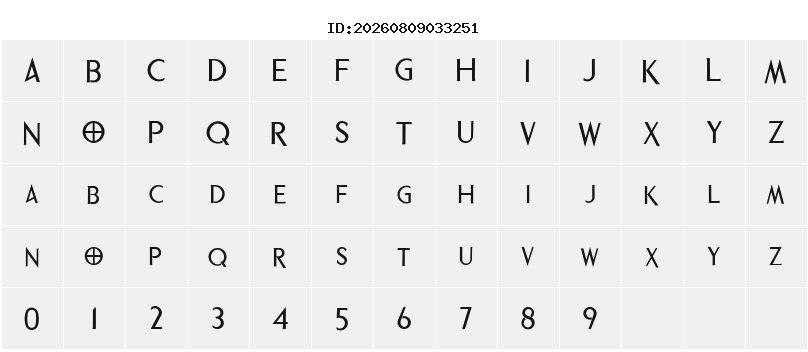
• Font Name: Phrixus
About Phrixus.ttf
Phrixus.ttf is a modern, elegant sans-serif font designed for ultimate readability and visual harmony. Perfect for branding, headlines, web design, and print materials.